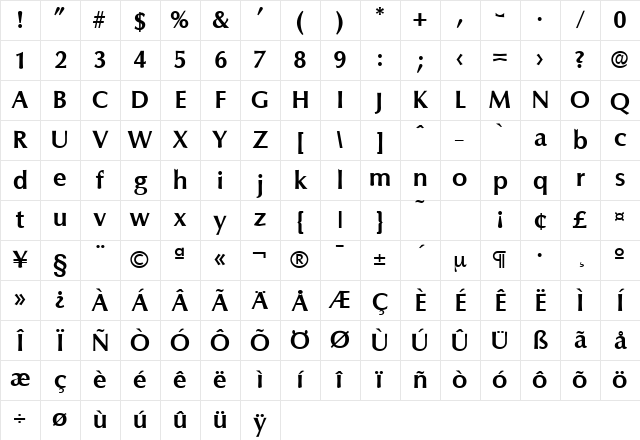
Columbia-Serial Bold
Design Context for Columbia-Serial
Columbia-Serial is a composed and adaptable typeface that performs quietly and consistently across a wide range of design contexts. Its bold stroke weight gives it real presence on the page.
Pro Tip: Use Columbia-Serial in both headline and body roles to test its range before committing to a single application.